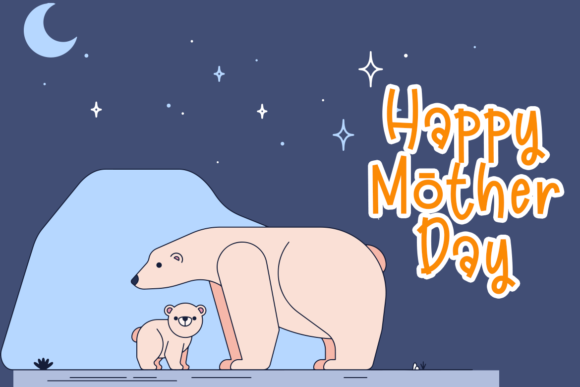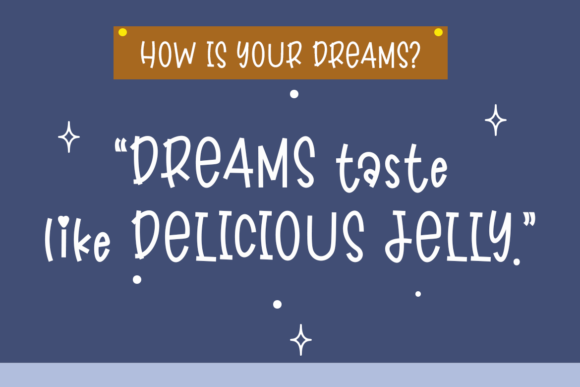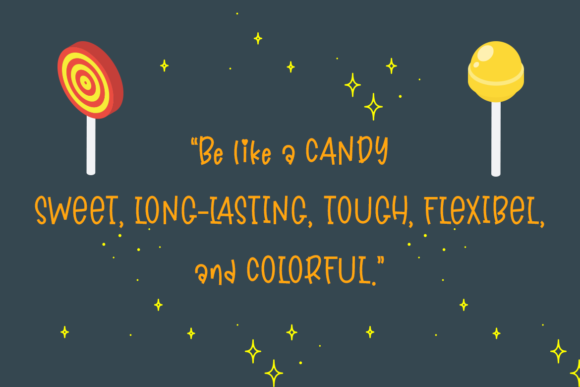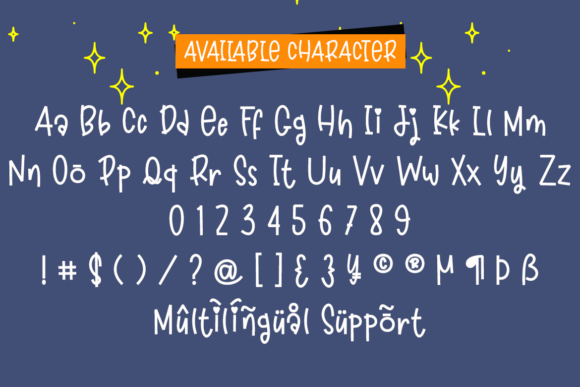
Introduction to Jellyshake Font
Have you ever found yourself in the midst of a creative project, desperately searching for the perfect design element to bring your idea to life? You know, that elusive combination of style, personality, and whimsy that makes your project truly special. For designers, this moment can be a game-changer – and it’s exactly where the Jellyshake Font comes in.
This charming handwritten font is more than just a design resource; it’s a key to unlocking the full potential of your creative vision. With its sweet and quirky aesthetic, Jellyshake Font is perfect for crafting, digital designing, presentations, or greeting cards making. Whether you’re working on a high-quality brochure or a simple social media post, this versatile font is sure to add a touch of personality to your design.
Key Features of Jellyshake Font
- High-quality design resource for creative projects
- Features a unique, playful design with bold and vibrant characters
- Perfect for use in digital design, including logos, icons, and graphics
Honest Review: Jellyshake Font
As a designer, I’m always on the lookout for unique and high-quality design resources to elevate my creative projects. The Jellyshake Font is one such resource that caught my attention, and I’m excited to share my honest review with you.
- ✨ Unique and playful design aesthetic: The Jellyshake Font has a fun and quirky feel to it, making it perfect for creative projects that need a bit of whimsy.
- ✨ High-quality design: The font is well-crafted and displays well on various backgrounds, including transparent backgrounds.
- ⚠️ Limited font weights: While the font is beautiful, it’s limited to a few font weights, which might not be suitable for all design projects.
- ⚠️ Not suitable for formal designs: Due to its playful nature, the Jellyshake Font might not be the best choice for formal or corporate designs.
Overall, I think the Jellyshake Font is a great addition to any designer’s toolkit. While it has some limitations, its unique design aesthetic and high-quality design make it a great choice for creative projects. Whether you’re a seasoned designer or just starting out, the Jellyshake Font is definitely worth checking out.
How to Use Jellyshake Font
Using Jellyshake Font in Creative Projects
Tips for Getting the Most Out of Jellyshake Font
To maximize the potential of the Jellyshake Font, experiment with different font sizes, colors, and styles. This font is ideal for creating eye-catching headlines, titles, and captions.
The Jellyshake Font is commonly used in:
• Social media graphics
• Infographics
• Brochures and flyers
• Web design
• Branding and marketing materials
High-Quality Design with Jellyshake Font
With its unique design and high-quality resolution, the Jellyshake Font is an excellent choice for any creative project. Its versatility and free download make it an ideal resource for designers of all levels.